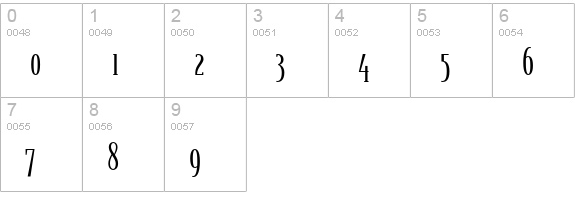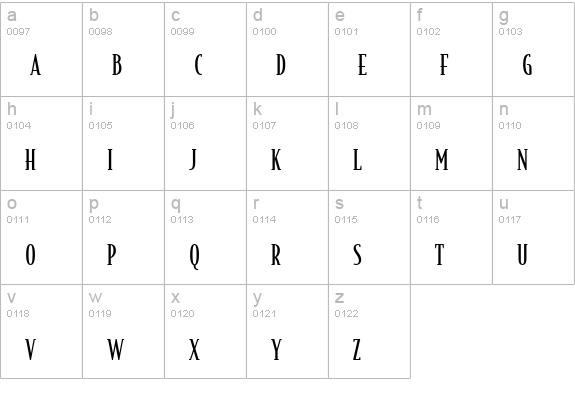
BodegaSerif-LightSmallcaps font is a delicate and elegant typeface that exudes sophistication and charm. With its slender serifs and small caps design, this font is perfect for adding a touch of refinement to any project. The subtle curves and clean lines of BodegaSerif-LightSmallcaps create a sense of grace and style that is sure to impress. Best of all, BodegaSerif-LightSmallcaps font is available for free download at FontsMarket.com. This means you can easily access this beautiful font and use it in your designs without any cost. Whether you're working on a professional project or a personal creative endeavor, BodegaSerif-LightSmallcaps font is a versatile and eye-catching choice that will elevate your work to the next level. Download it now and start adding a touch of elegance to your designs!